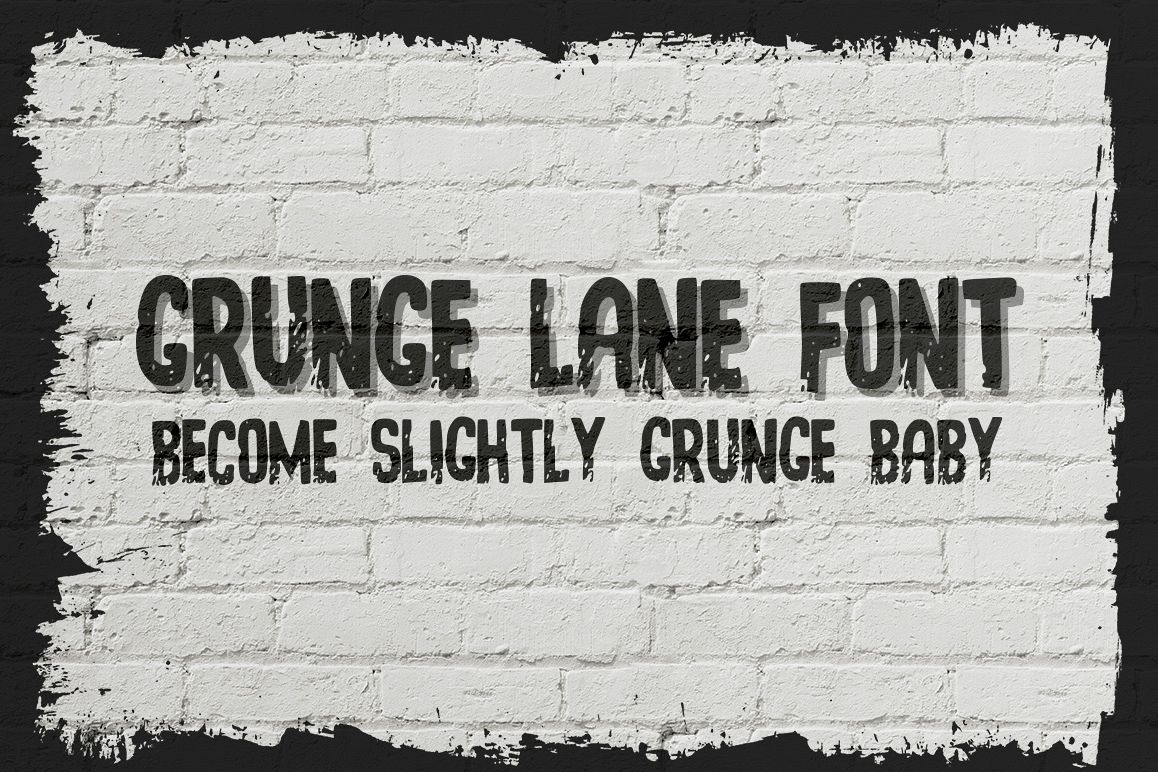
Very simple amateur grunge font in TTF format. I hope you will be fully satisfied when using it. If you need help using the product or you have any questions - at any time, send me a message.Thank you for attention!